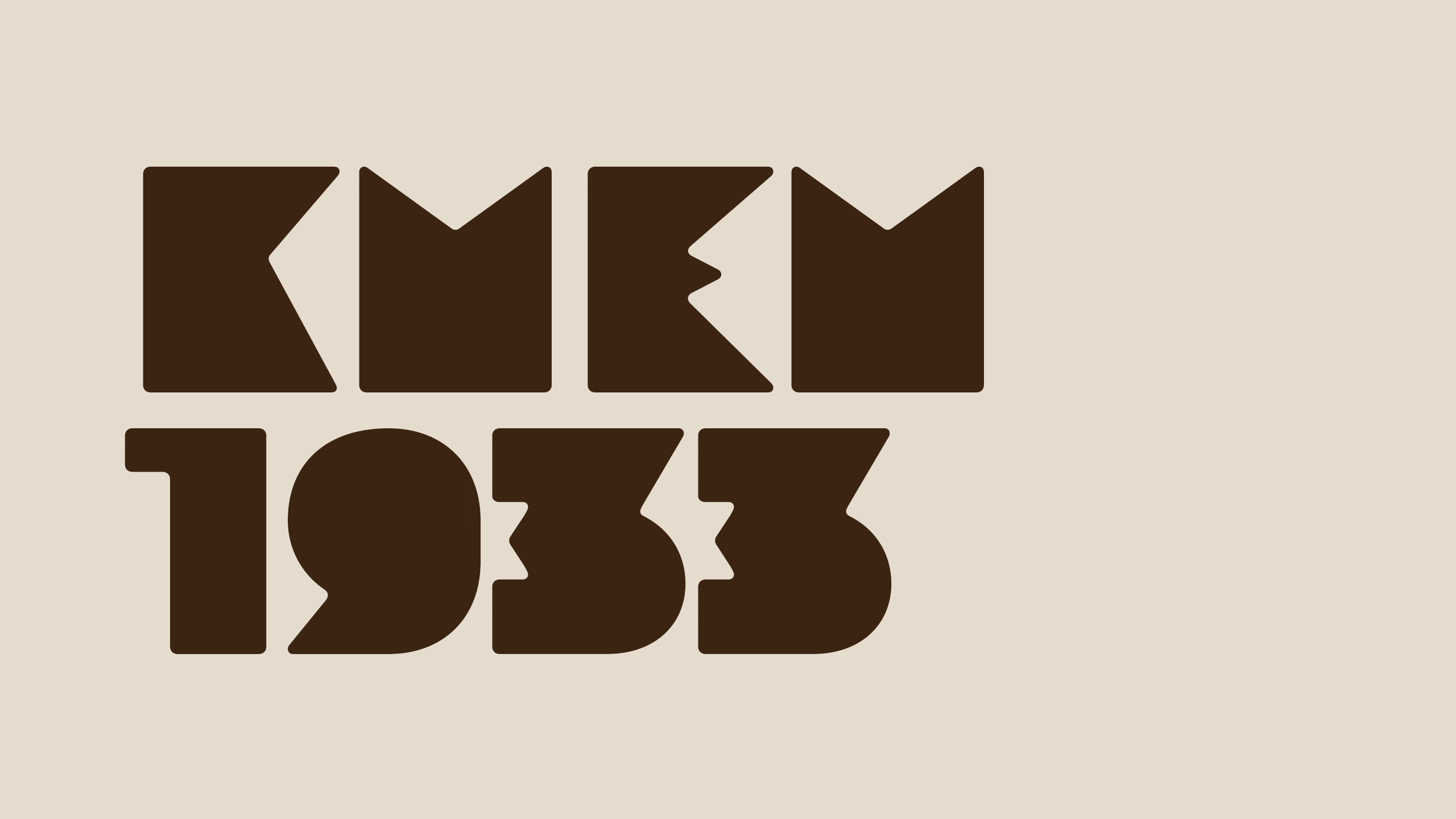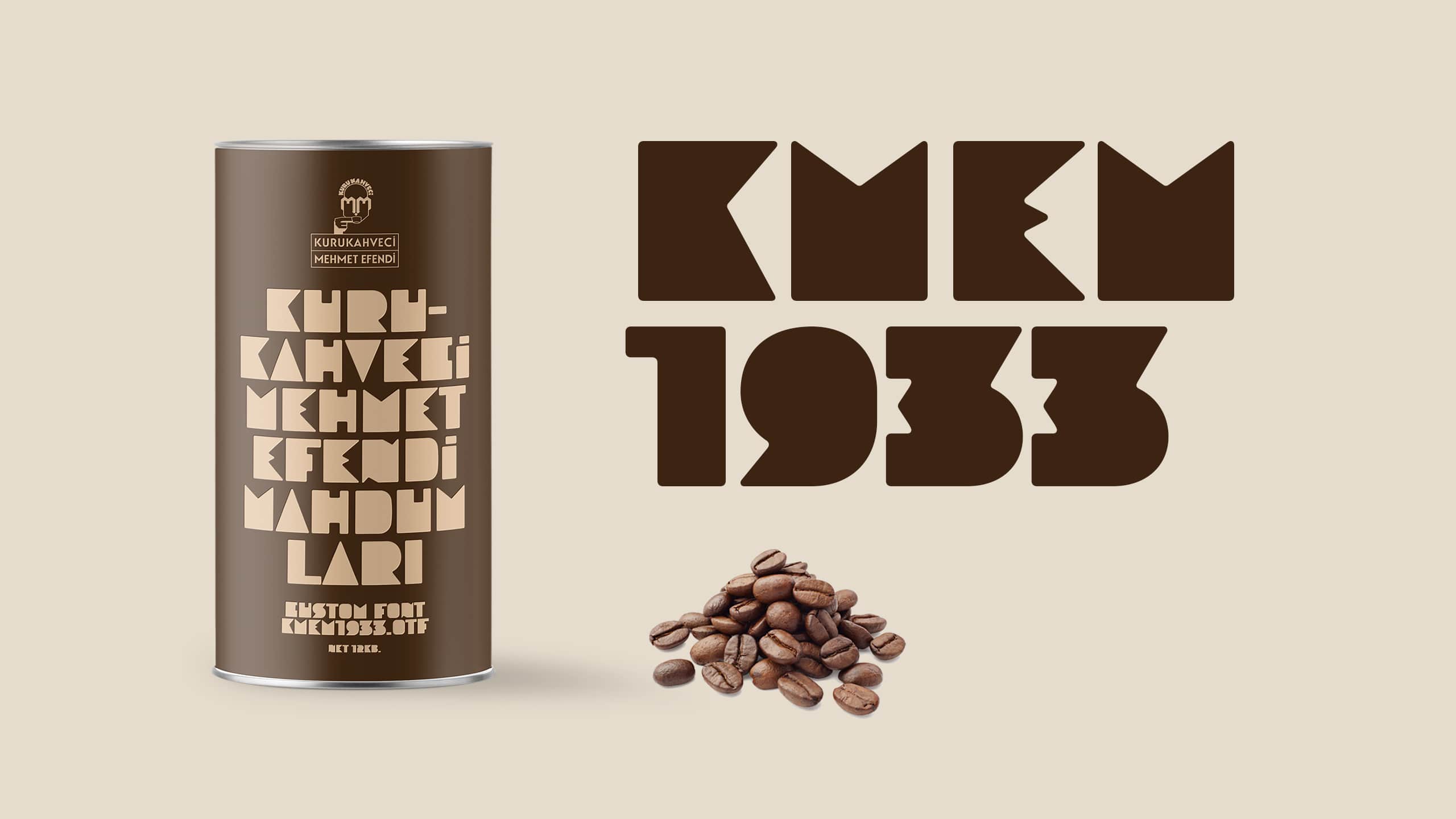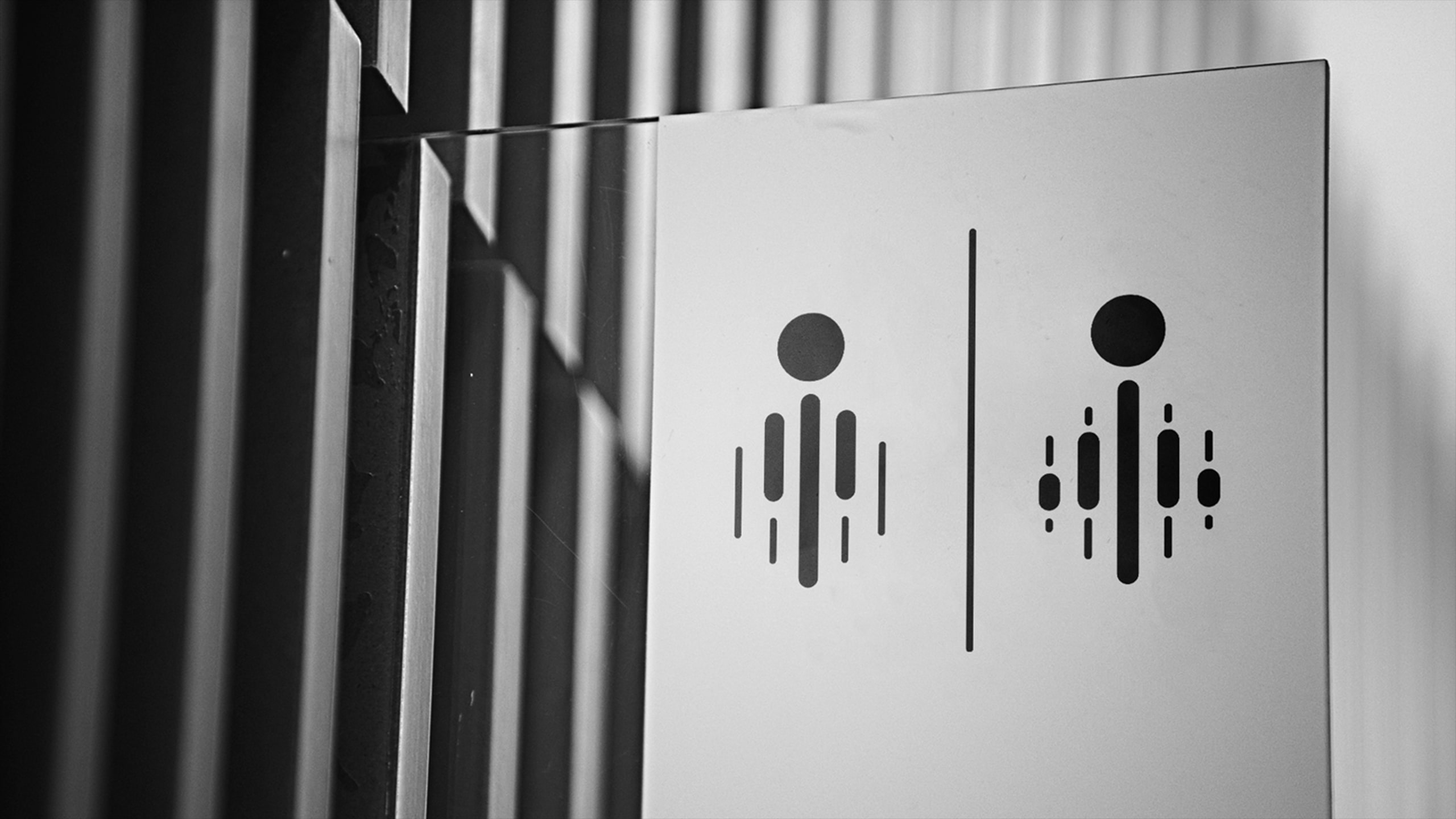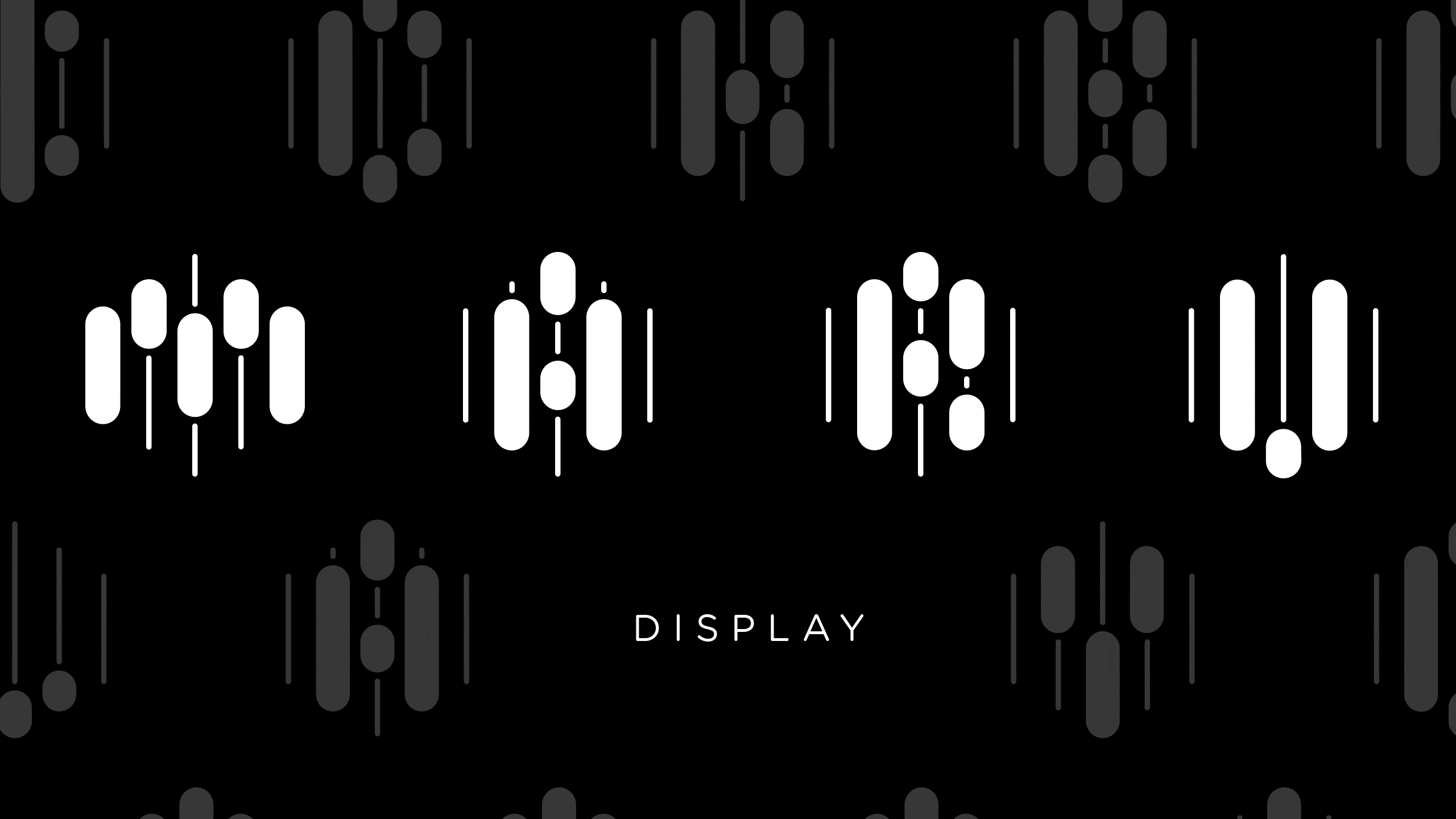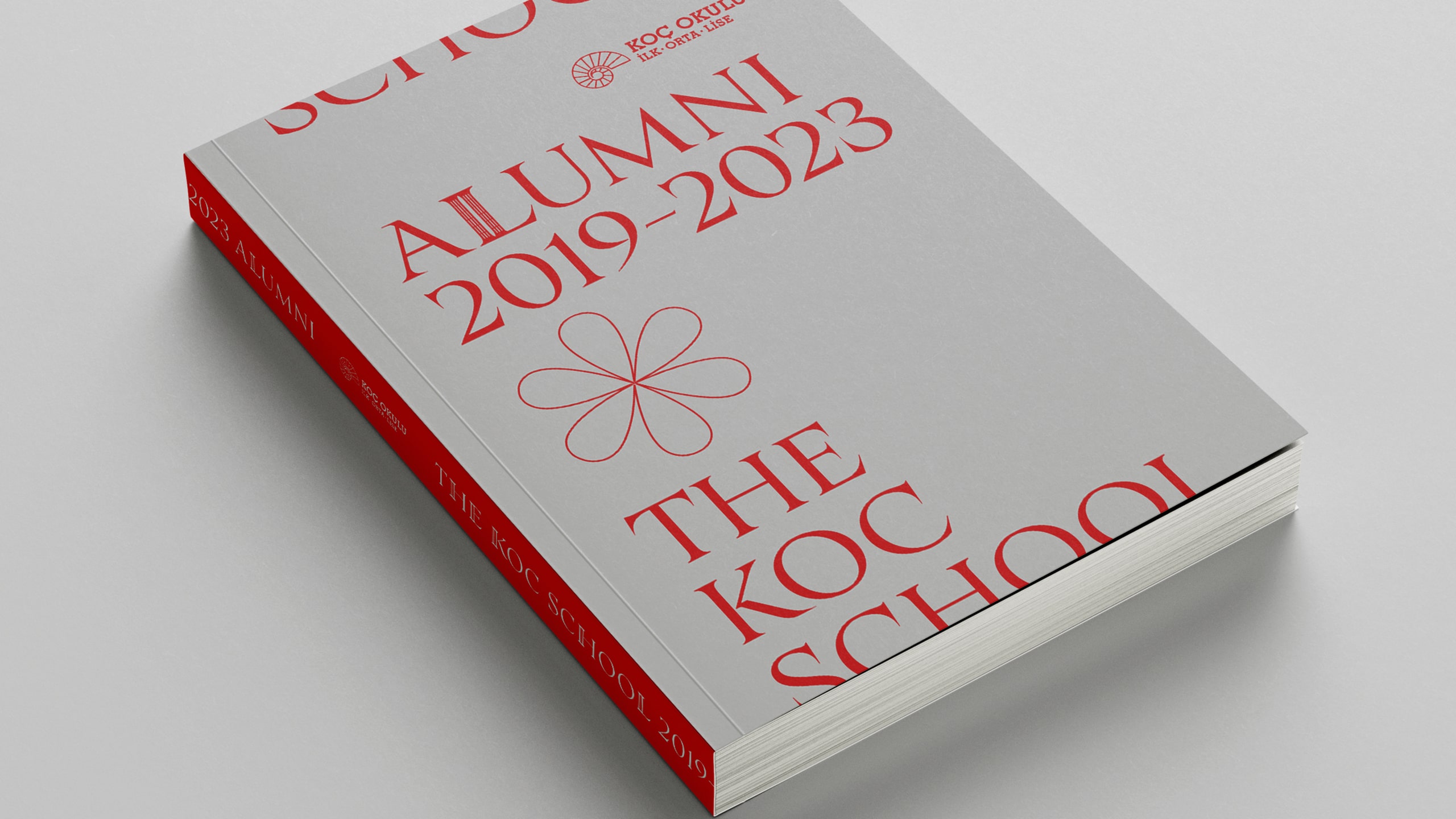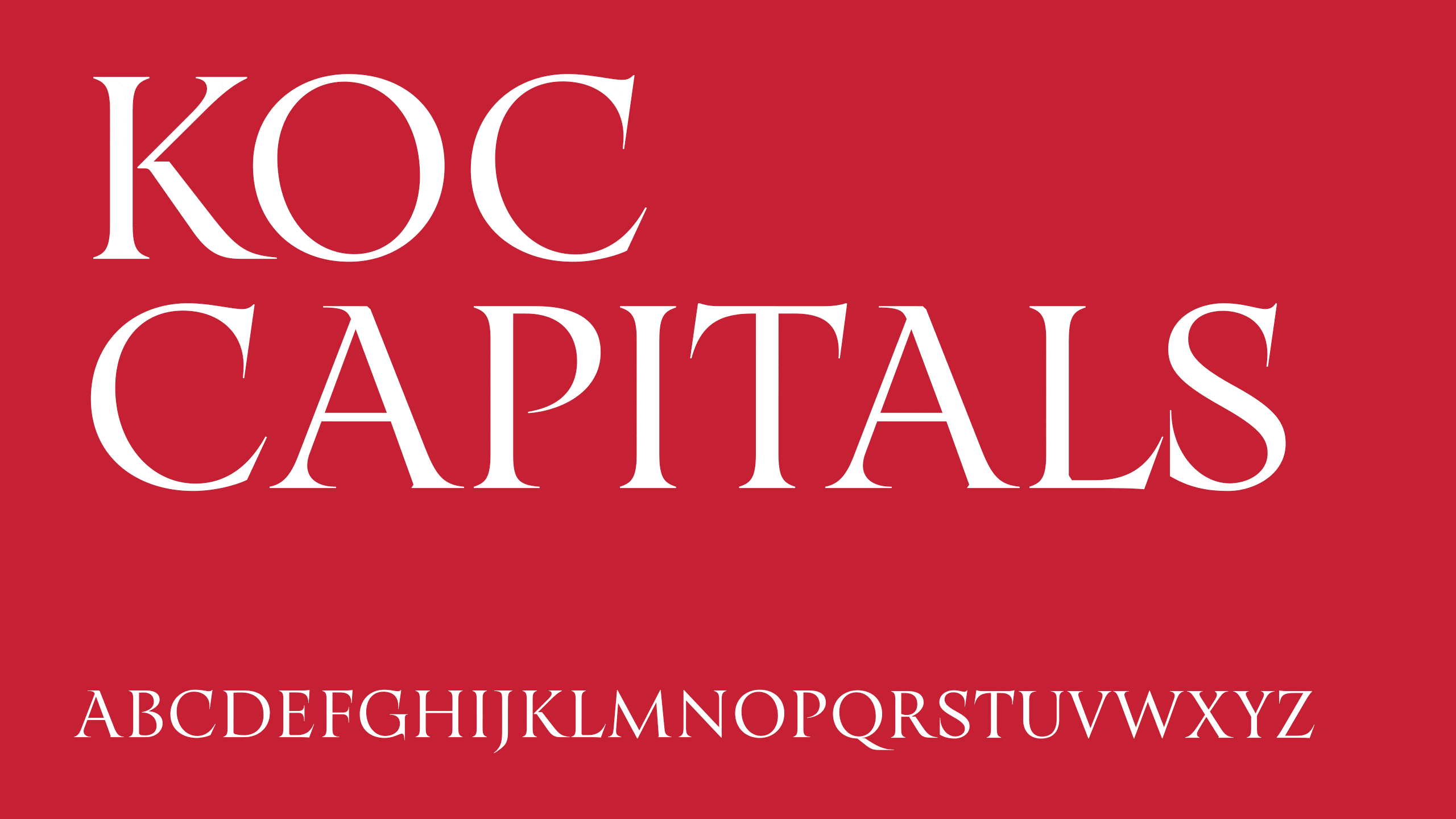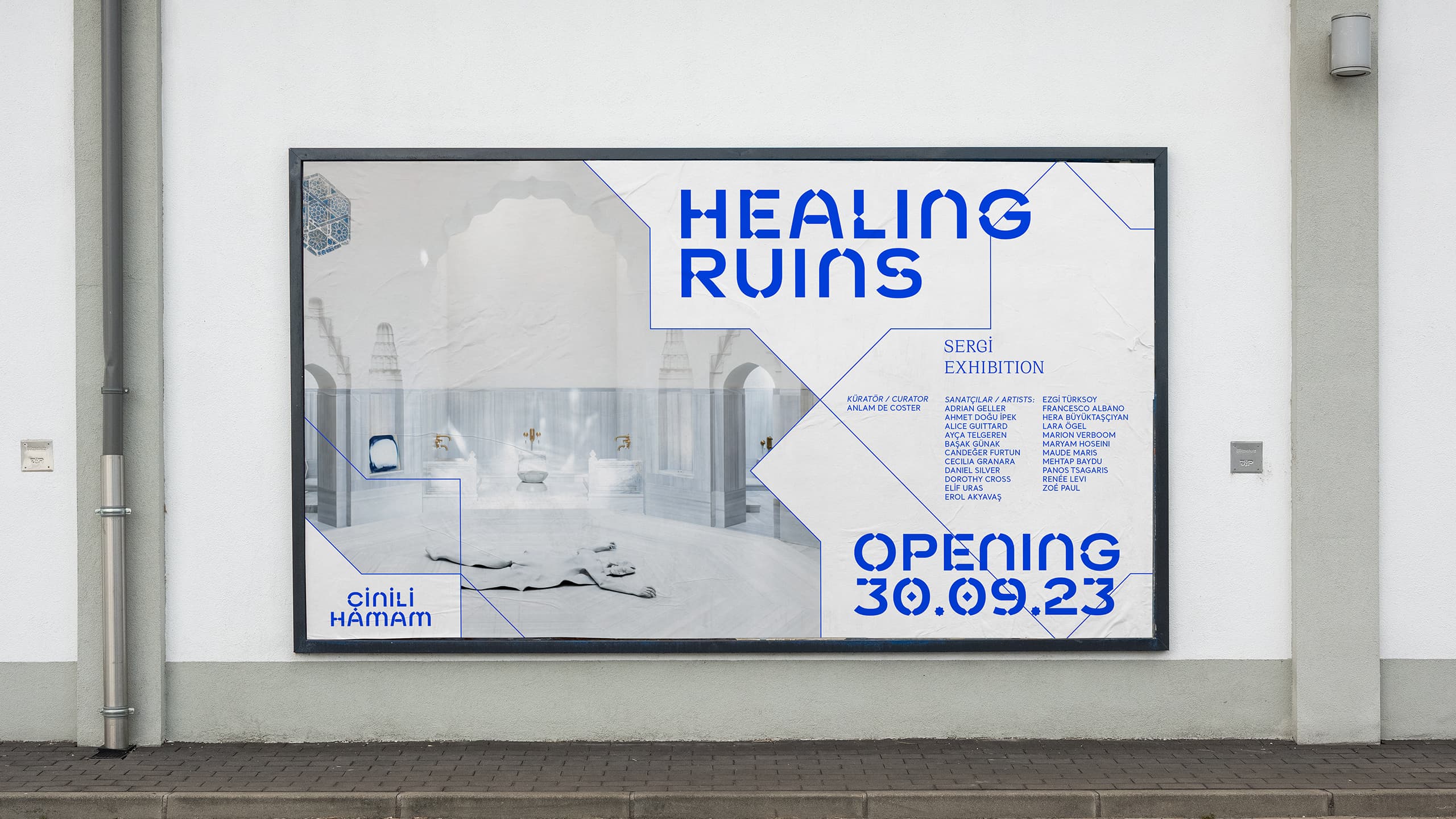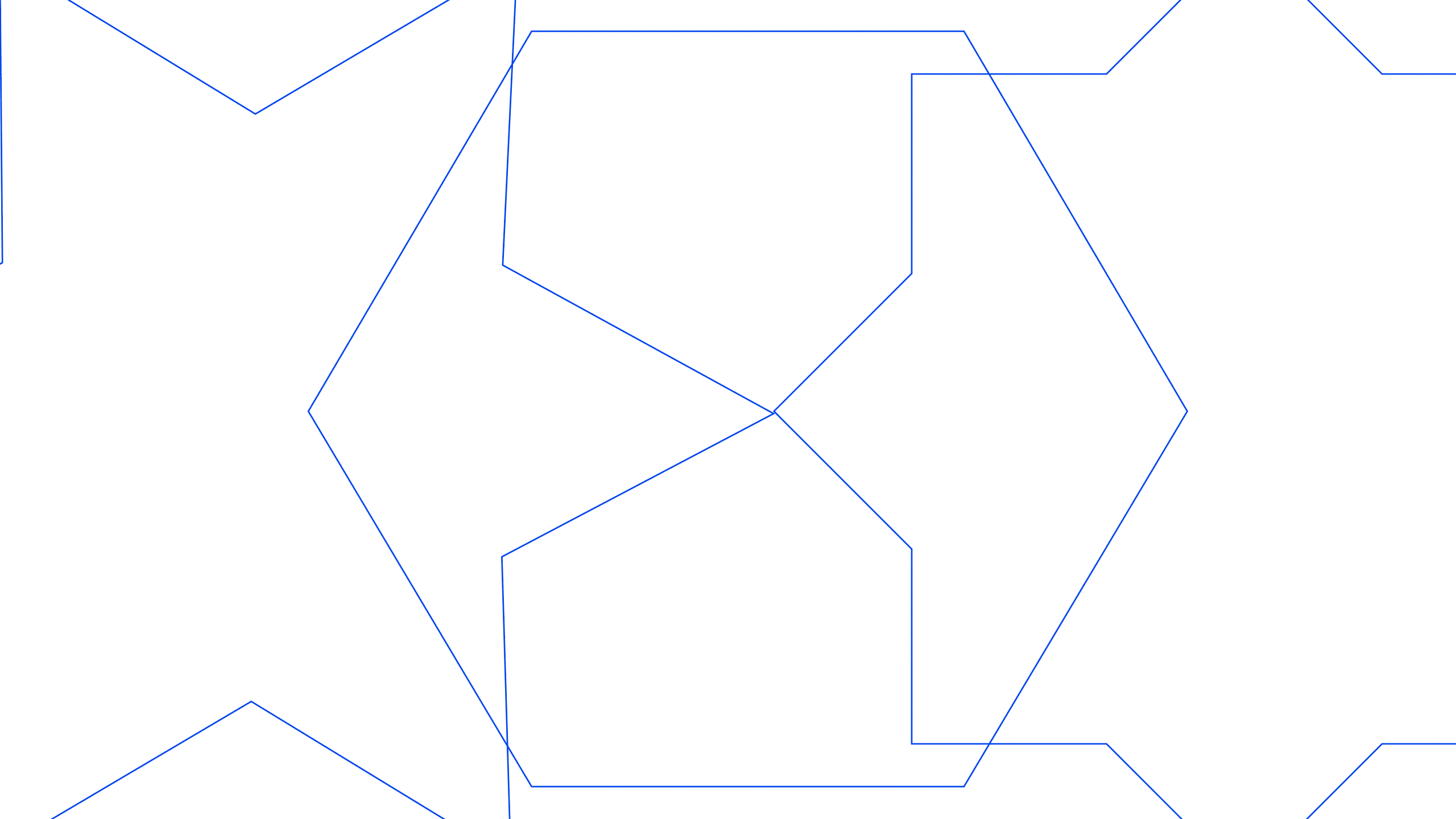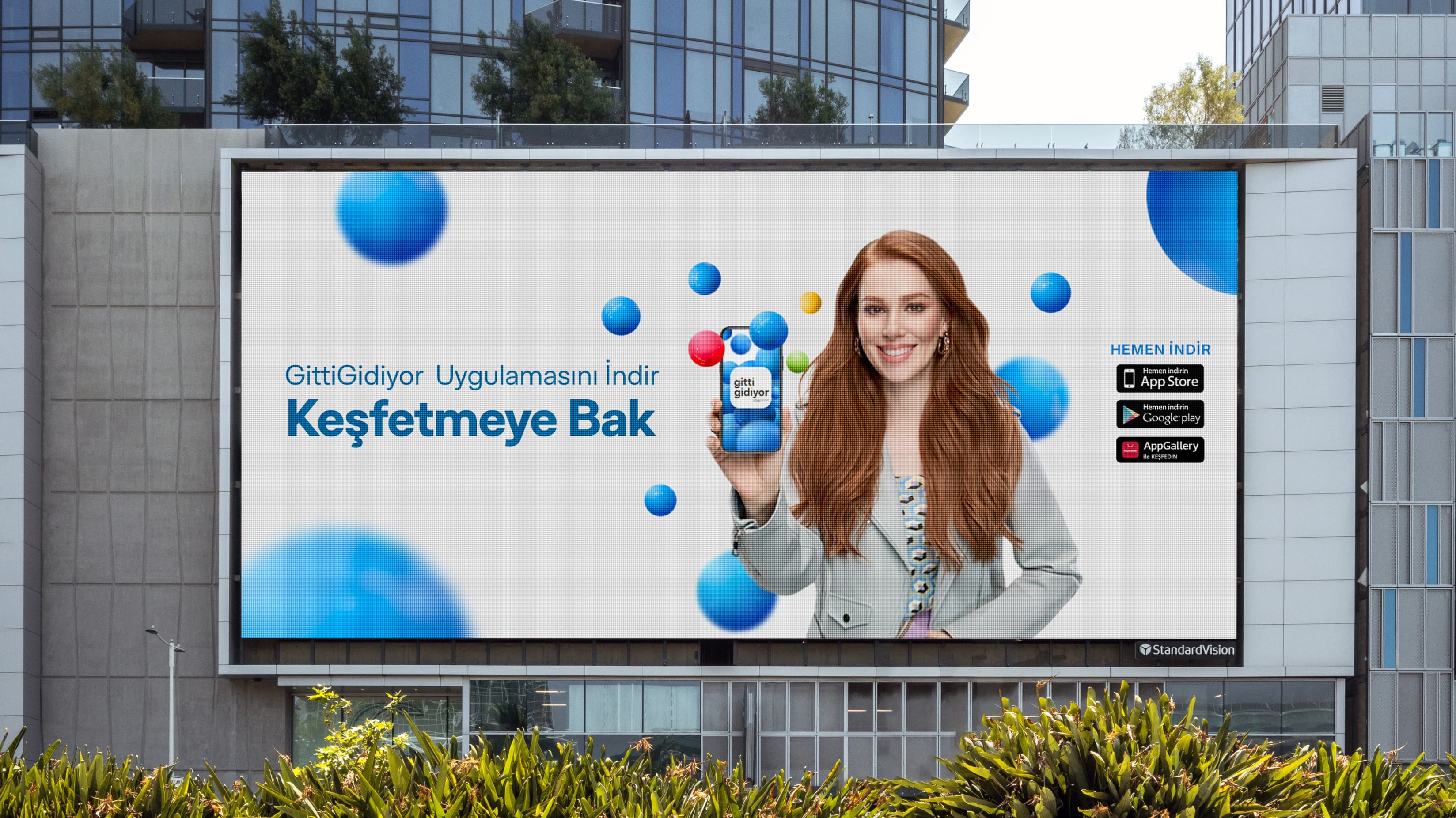
Fonts are the voices of brands.
TAF Studio offers custom type design services. These are either entirely unique typefaces designed from scratch or custom adaptations of existing designs for clients.
Whether it's for functional or communicative purposes, custom typefaces play a significant role in strengthening a brand's identity and setting it apart from competitors. A custom designed typeface not only reflects the brand's values but also serves as a powerful communication tool to capture the target audience and create the right impression.
INSURANCE COMPANY
Türkiye Sigorta Sans is a custom designed typeface engineered to deliver clarity, corporate authority, and a unified voice for Turkey's largest insurance provider.
FINTECH COMPANY
Paribu Sans is a custom typeface family of Standard and Monospace styles, crafted to elevate user experience as a core pillar of the brand identity.
E-COMMERCE PLATFORM
Sahibinden Grotesk is a typeface crafted with innovative design solutions to meet the needs of 61.7 million users of sahibinden.com
BUSINESS SOFTWARE
InfoRiver is a humanistic sans serif font built to display numeric data.
SPORT CLUBS
The MacFit Variable, bold and dynamic typeface for the brand's marketing campaign.
E-COMMERCE PLATFORM
GittiGidiyorPlanc is a special edition of Planc that customized to maximize the shopping experience.
MUSEUM
A typeface designed for the Çinili Hamam Museum, one of Mimar Sinan’s masterpieces.
LEGAL TECH COMPANY
Mecellem is a grotesk typeface performing on digital medias, designed to achieve compact look & fluent reading.
COFFEE PRODUCTION COMPANY
Custom display typeface inspired by the brand's heritage and revitalizing the nostalgic sign font.
ARCHITECTURE TECHNOLOGY
Maru is a design system where letters and icons can be generated as glyphs in a font.
EDUCATION ESTABLISHMENT
The “Koc Capitals” designed as a display typeface that embraces and continues the architectural heritage of Koç School.